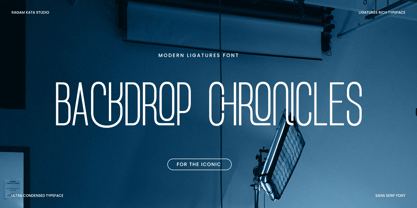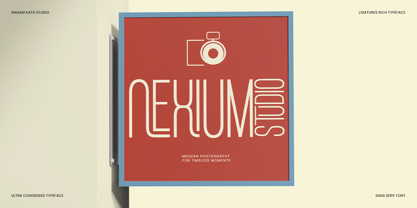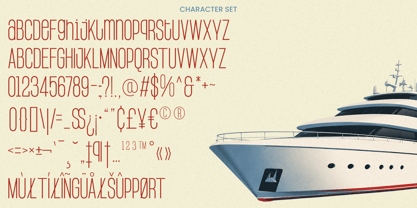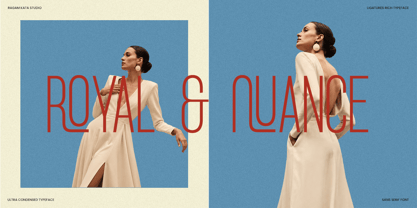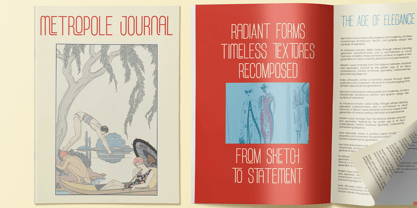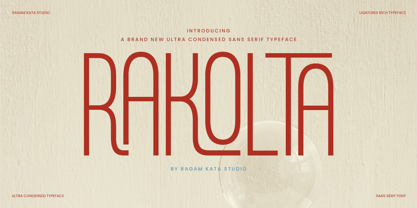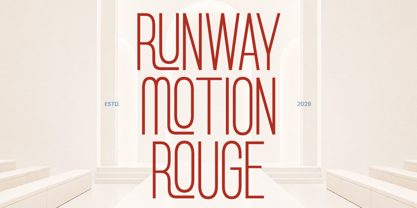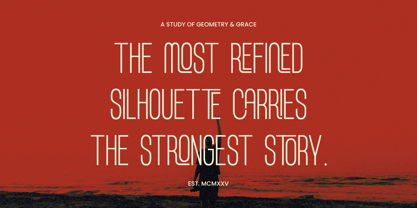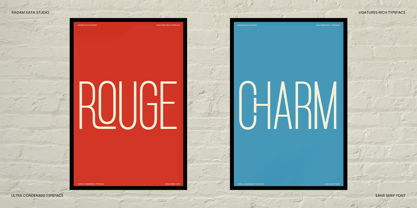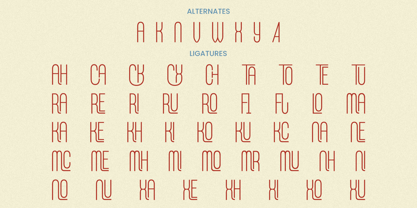
Rakolta
by RagamKata
The Rakolta Font Family was designed by Yogiswhara Dio Prakoso Riadi and published by RagamKata. Rakolta contains 2 styles and family package options. More about this family
Rakolta is an ultra condensed sans serif typeface crafted to bring elegance, sophistication, and modern minimalism into a single visual language. With its tall proportions, graceful curves, and carefully designed ligatures, Rakolta creates a distinctive presence that feels both contemporary and timeless. Every letterform is refined to maximize visual impact while maintaining a clean and luxurious aesthetic, making it ideal for premium branding and editorial design.
Designed for creatives who seek a balance between fashion-forward style and functional typography, Rakolta delivers exceptional versatility across print and digital applications. Its condensed structure allows headlines to command attention without overwhelming layouts, while the rich ligature system introduces a unique personality that elevates logos, wordmarks, magazine titles, packaging, and advertising campaigns.
From luxury fashion brands and beauty products to editorial layouts, wedding stationery, photography identities, and lifestyle businesses, Rakolta provides a sophisticated typographic voice that communicates confidence, refinement, and modern elegance. Whether used in large display settings or premium branding systems, Rakolta transforms simple words into memorable visual statements.
• Stylistic Ligatures